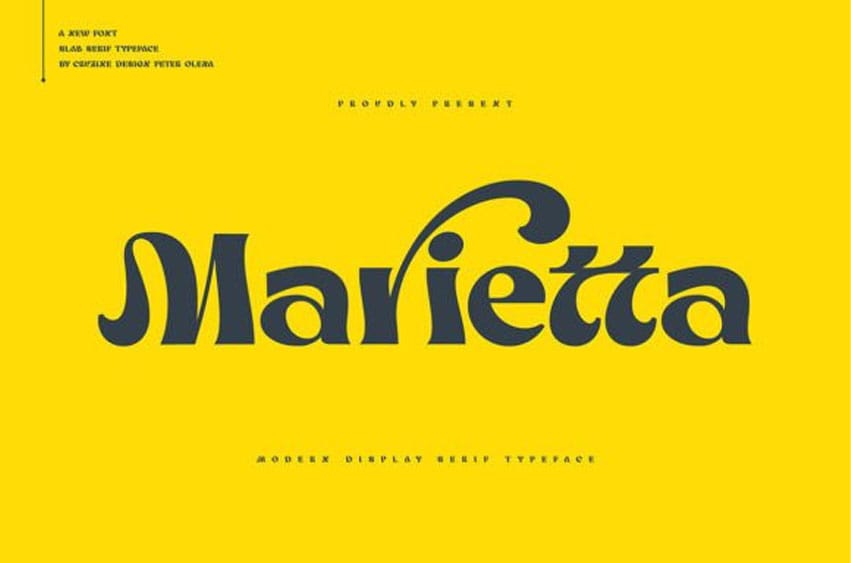
Marietta Font With its contemporary take on traditional serifs, our latest font oozes modern sophistication and style. The clean lines of this font make it the perfect choice for projects that require a touch of class and contemporary elegance, such as branding and editorial design.
Keep your designs ahead of the curve with this trendy and stylish font, Marietta.